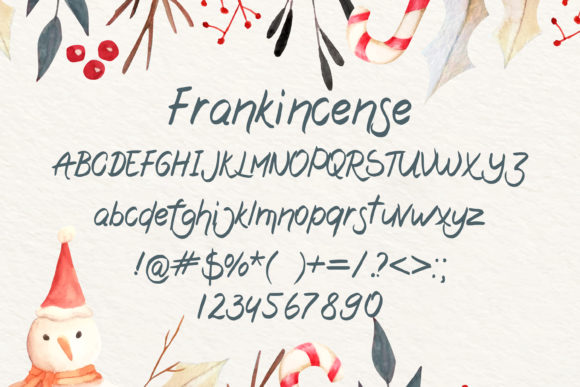
Introduction to Frankincense Font
Have you ever been stuck on a creative project, searching for the perfect font to elevate your design? I’m sure we’ve all been there – scrolling through font libraries, trying to find that one special font that brings our vision to life. And then, it hits you – a spark of inspiration that sets your project ablaze with creativity. For me, it was a Christmas decoration project that needed a touch of elegance and sophistication. That’s when I stumbled upon the beautiful Frankincense Font.
As a valuable addition to any designer’s library, the Frankincense Font is a game-changer. Its simplicity and neat lettering make it a perfect fit for a wide range of designs, from Christmas decorations to wedding invitations. With its high-quality design and transparent background, this font is a must-have for any creative project.
Key Features of Frankincense Font
- Unique, elegant script font ideal for creative projects and design resources.
- High-quality design with a transparent background, making it perfect for overlaying on images or videos.
- Designed with precision and care, this font is suitable for a wide range of applications, from wedding invitations to magazine headlines.
Honest Review: Frankincense Font
What works well with the Frankincense Font is its elegant and sophisticated design. The font is highly customizable, allowing designers to adjust the size, color, and style to suit their creative needs. I’ve used it in a few projects, and it always adds a touch of sophistication and class. ✨
- Customizable
However, there are a few limitations to consider. The font may not be suitable for bold or loud designs, as it tends to get lost in the background. Additionally, the font family is relatively small, so you may need to experiment with different combinations to achieve the desired effect. ⚠️
Overall, I’m impressed with the Frankincense Font. It’s a solid design resource that can add a touch of elegance to your creative projects. While it may have some limitations, it’s definitely worth checking out for designers looking for a high-quality, free font.
Tips for Getting the Most Out of the Frankincense Font
To maximize the use of the Frankincense Font, experiment with different font sizes, colors, and styles to create visually appealing designs. You can also combine it with other design elements to create unique and creative projects.
The Frankincense Font is suitable for a wide range of creative projects, including graphic design, branding, and digital art. It’s a great resource for designers, artists, and writers looking for a high-quality font with a transparent background.